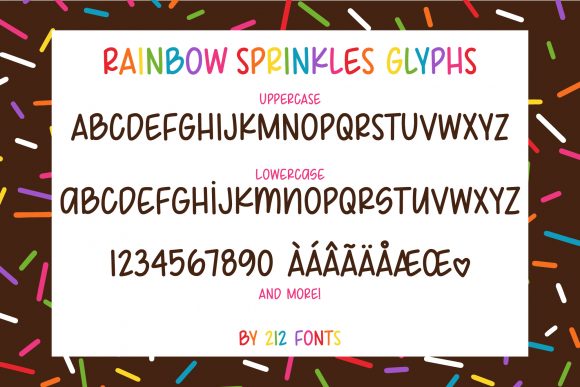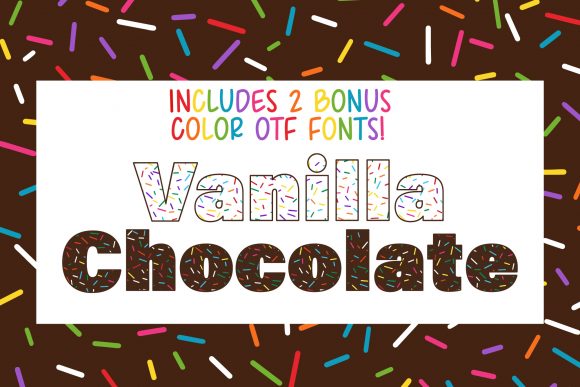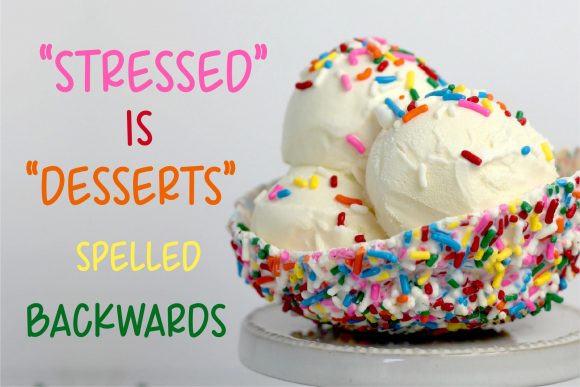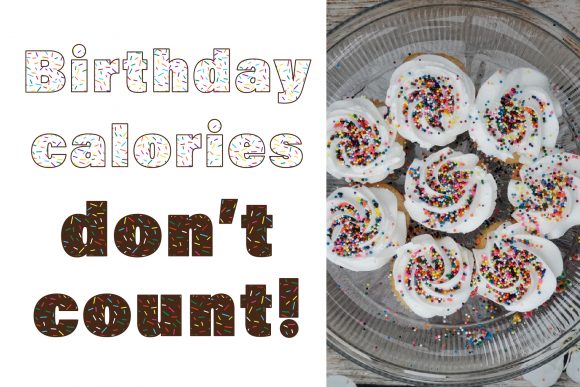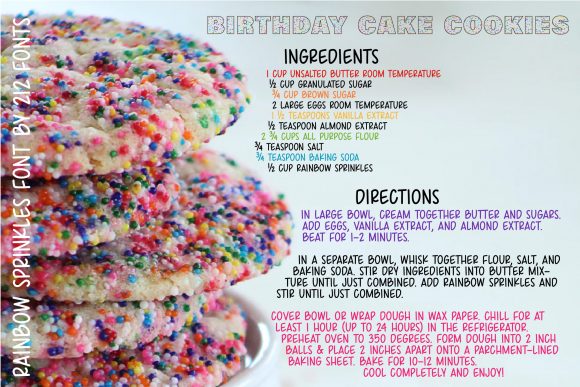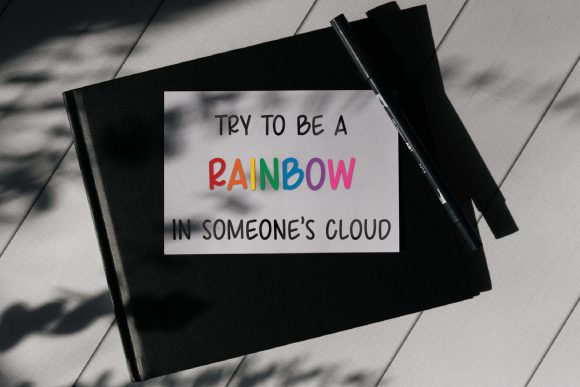
Introduction to Rainbow Sprinkles Font
Remember the joy of decorating cupcakes for a birthday party as a kid? The excitement of choosing the perfect sprinkles to make the dessert pop with color? That same magic can now be captured in your designs with the Rainbow Sprinkles Font.
This charming display font embodies the playfulness and authenticity of a child’s imagination, making it the perfect choice for any children’s activity or school project. Whether you’re a parent, teacher, or designer, the Rainbow Sprinkles Font is a valuable design resource that can add a personal touch to your creative projects.
With its high-quality design and transparent background, this font is easily downloadable and ready to be used in your next design project. From social media graphics to party invitations, the Rainbow Sprinkles Font is sure to bring a smile to anyone’s face.
Key Features of Rainbow Sprinkles Font
- Rainbow Sprinkles Font is a free design resource perfect for creative projects that require a touch of whimsy and fun.
- This high-quality font features a transparent background, making it easy to layer and customize in your design.
- What sets Rainbow Sprinkles Font apart is its unique, hand-drawn style and playful color palette, making it ideal for birthday invitations, party decorations, and other celebratory designs.
- Rainbow Sprinkles Font is a great resource for designers of all levels, from beginners to professionals, and is sure to add a pop of color and personality to any design.
Honest Review: Rainbow Sprinkles Font
I recently stumbled upon the Rainbow Sprinkles Font, and I must say, it’s a delightful addition to any design project. ✨ This free download has become an instant favorite among designers and creative enthusiasts alike.
The font boasts a high-quality design, with intricate details and a transparent background that allows for seamless integration into various design resources. Its playful, whimsical nature makes it perfect for projects that require a touch of magic and wonder.
- High-quality design and intricate details
- Perfect for creative projects that require a playful touch
- May not be suitable for formal or professional projects
- Limited character set and font styles
Overall, the Rainbow Sprinkles Font is a wonderful design resource that adds a pop of color and creativity to any project. Its limitations are minor, and the benefits far outweigh the drawbacks. If you’re looking for a fun and whimsical font to elevate your design, I highly recommend giving Rainbow Sprinkles Font a try.
The Rainbow Sprinkles Font is ideal for creating playful and whimsical designs, such as children’s party invitations, social media graphics, and blog posts. Its high-quality and transparent background make it a versatile design resource for various creative projects.